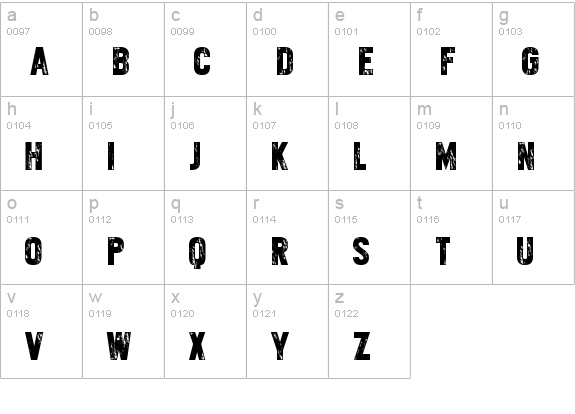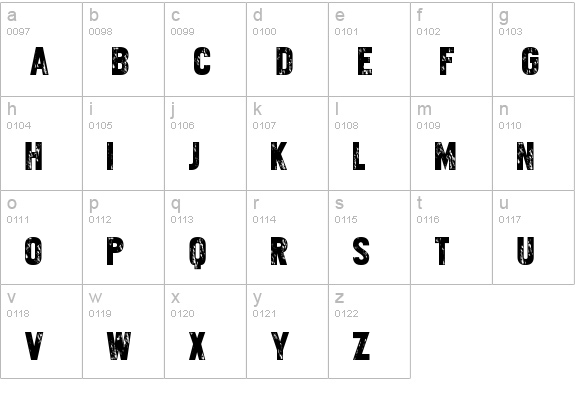
Varietykiller Font Details
Varietykiller font is a striking and versatile typeface that is sure to make your design projects stand out. With its unique blend of modern and edgy elements, Varietykiller is perfect for creating eye-catching logos, posters, and more. This font offers a wide range of characters, including uppercase and lowercase letters, numbers, and special symbols, allowing you to unleash your creativity and bring your ideas to life. The best part? Varietykiller font is completely free to download at FontsMarket.com. Whether you're a professional designer or just starting out, this font is a must-have addition to your collection. Don't miss out on the opportunity to add this bold and impactful typeface to your design arsenal today!